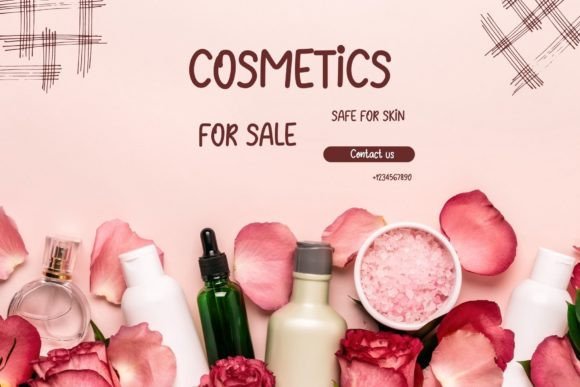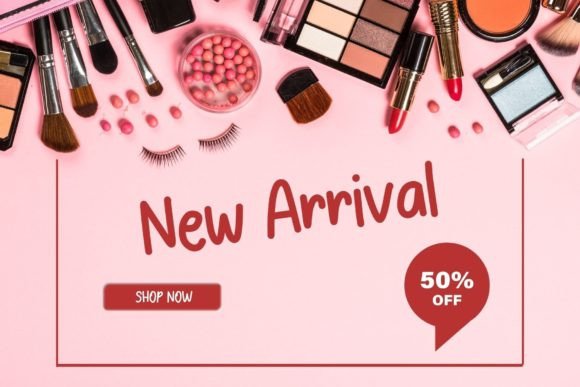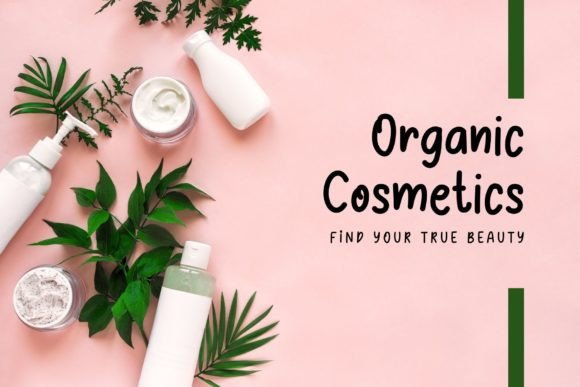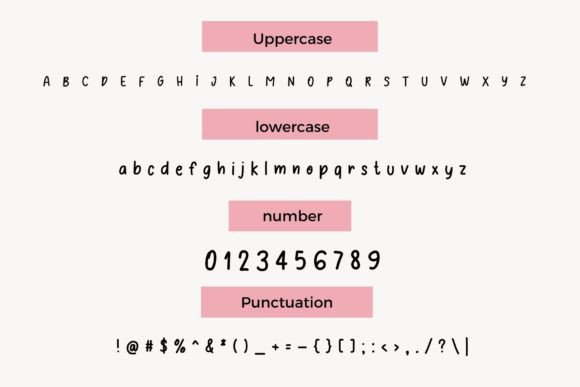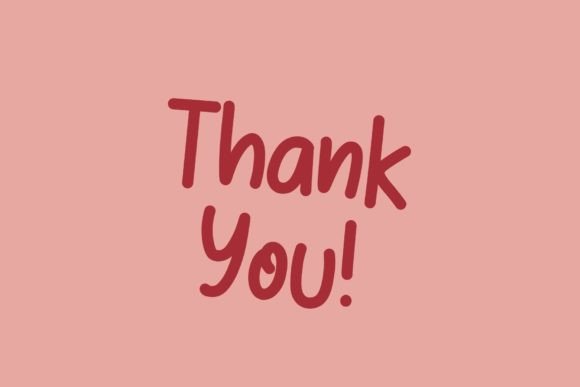
Discover the Charm of Giovanni Font: A Cute Handwritten Delight
Are you on the hunt for a font that embodies playfulness and authenticity? Look no further than Giovanni Font, a cute handwritten font that’s perfect for adding a personal touch to your designs. Whether you’re working on blog posts, logos, branding, ads, invitations, greeting cards, planners, photo albums, decorations, or any other project, Giovanni Font is sure to bring a smile to your audience’s faces.
The Characteristics of Giovanni Font
Giovanni Font is a beautifully crafted handwritten font that’s designed to evoke a sense of warmth and friendliness. Its unique characteristics make it stand out from other fonts, and its versatility ensures that it can be used in a wide range of applications. Here are just a few of the key features that make Giovanni Font so special:
• Playful and Authentic: Giovanni Font has a distinctly playful and authentic feel that’s perfect for designers who want to add a personal touch to their work.
• Handwritten with Love: This font is carefully crafted to mimic the look and feel of handwritten text, making it perfect for projects where you want to add a touch of personality.
• Highly Versatile: Whether you’re working on a blog post, logo, or greeting card, Giovanni Font is the perfect choice for any project where you want to add a touch of whimsy and charm.
Uses for Giovanni Font
So, what can you use Giovanni Font for? The possibilities are endless! Here are just a few ideas to get you started:
• Blog Posts: Add a personal touch to your blog posts with Giovanni Font, perfect for headings, subheadings, and body text.
• Logos and Branding: Create a unique and memorable logo with Giovanni Font, or use it to add a touch of personality to your branding materials.
• Ads and Marketing Materials: Make your ads and marketing materials stand out with Giovanni Font, perfect for adding a touch of whimsy and charm.
• Invitations and Greeting Cards: Add a personal touch to your invitations and greeting cards with Giovanni Font, perfect for special occasions like weddings, birthdays, and holidays.
• Planners and Photo Albums: Use Giovanni Font to add a touch of personality to your planners and photo albums, making them extra special and meaningful.
• Decorations: Add a touch of whimsy and charm to your decorations with Giovanni Font, perfect for DIY projects, scrapbooking, and more.
Why Choose Giovanni Font?
So, why choose Giovanni Font over other fonts? Here are just a few reasons why designers and crafters love this adorable handwritten font:
• Unique and Memorable: Giovanni Font is a one-of-a-kind font that’s sure to make your designs stand out from the crowd.
• Easy to Read: Despite its playful and whimsical feel, Giovanni Font is highly legible and easy to read, making it perfect for body text and other applications.
• Highly Versatile: Whether you’re working on a digital project or a print project, Giovanni Font is the perfect choice for any design.
Tips for Using Giovanni Font
Here are a few tips for getting the most out of Giovanni Font:
• Use it Sparingly: While Giovanni Font is perfect for adding a touch of personality to your designs, it’s best to use it sparingly to avoid overwhelming your audience.
• Pair it with Other Fonts: Experiment with pairing Giovanni Font with other fonts to create a unique and visually appealing design.
• Experiment with Colors: Don’t be afraid to experiment with different colors and textures to add depth and interest to your designs.
In conclusion, Giovanni Font is a cute handwritten font that’s perfect for designers and crafters who want to add a touch of playfulness and authenticity to their work. With its unique characteristics, versatility, and ease of use, it’s the perfect choice for any project where you want to make a lasting impression. So why wait? Download Giovanni Font today and start adding a touch of whimsy and charm to your designs!